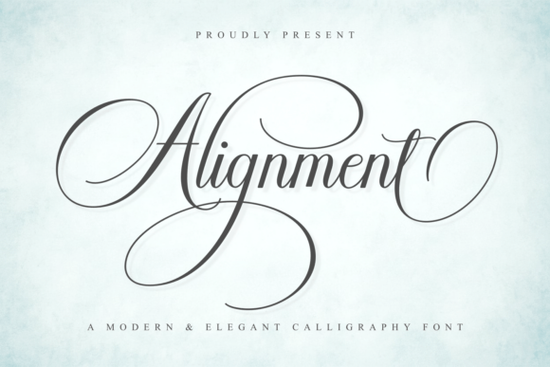
Alignment Font is a versatile script font that brings a touch of elegance and sophistication to any design project. Whether you're working on branding, wedding invitations, or luxury packaging, this font offers a modern calligraphy style that feels both romantic and professional. Its flowing letterforms and balanced contrast make it easy to read while maintaining a luxurious feel. The PUA encoding ensures that all glyphs and swashes are accessible without complications.
If you're looking for a font that combines style with functionality, Alignment Font could be the perfect addition to your collection. It’s ideal for designers, crafters, and small businesses who want to add a refined touch to their work. The font’s smooth handwritten strokes make it suitable for both digital and print applications, giving you flexibility in how you use it.
For those who love feminine and stylish fonts, Alignment Font stands out as a go-to choice. Its elegant swashes and curves provide a sense of movement and grace, making it great for creative projects that require a personal and artistic flair. Whether you're designing social media graphics, quotes, or fashion-related content, this font can help elevate your visual storytelling.
Why Choose Alignment Font?
One of the key advantages of Alignment Font is its readability. Despite its ornate appearance, it remains clear and legible, even at smaller sizes. This makes it a practical option for a wide range of uses, from headlines to body text. The font also works well in both light and dark backgrounds, offering more design possibilities.
Another benefit is its adaptability across different platforms. Whether you’re creating a logo, a wedding invitation, or a packaging design, Alignment Font maintains its quality and consistency. Its modern calligraphy style adds a touch of class that can make your designs stand out in a competitive market.
Best Uses for Alignment Font
Alignment Font shines in projects that require a sense of refinement and creativity. For example, it's an excellent choice for wedding day fonts, where a delicate and elegant style is essential. Its smooth strokes and flowing curves can add a romantic and timeless feel to invitations, thank-you cards, and other wedding-related materials.
It also works well for pink pastel fonts, especially when paired with soft color palettes. The font’s feminine characteristics complement pastel tones, making it ideal for beauty, fashion, or lifestyle branding. Additionally, it can be used in luxury packaging to give products a high-end look that appeals to discerning customers.
For those who enjoy experimenting with different styles, Alignment Font can be combined with other fonts to create unique and eye-catching designs. Its versatility allows it to fit into various themes, from minimalist to ornate, depending on the project’s needs.
How to Use Alignment Font Effectively
To get the most out of Alignment Font, consider the following tips. First, use it for headings or short phrases where its decorative elements can shine. Avoid using it for long paragraphs, as the intricate details may reduce readability. Second, pair it with a clean sans-serif font for contrast, which can help balance the design and improve overall clarity.
If you're interested in exploring similar fonts, you might want to check out Alignment Font on Creative Fabrica. This platform offers a wide selection of fonts, including many that share the same elegant and stylish qualities. You can also find other script fonts like Black Sample Font, Outside Font, and Christmas Lights Font, each with their own unique characteristics.
Whether you're a designer, a crafter, or a small business owner, Alignment Font provides a powerful tool for adding a touch of sophistication to your work. With its combination of style, readability, and versatility, it’s a valuable asset for any creative project.
- Use it for headings and short text to highlight its elegant features.
- Pair it with a clean, modern font for contrast and balance.
- Test it on different backgrounds and sizes to ensure readability.